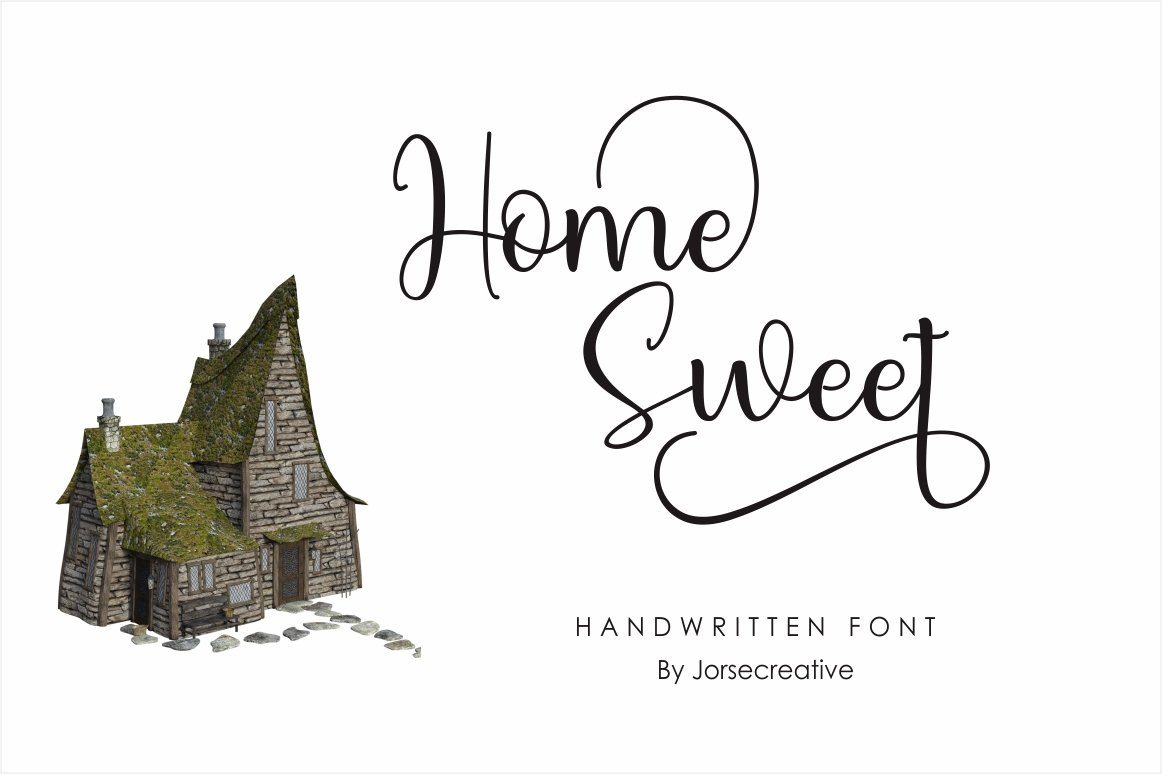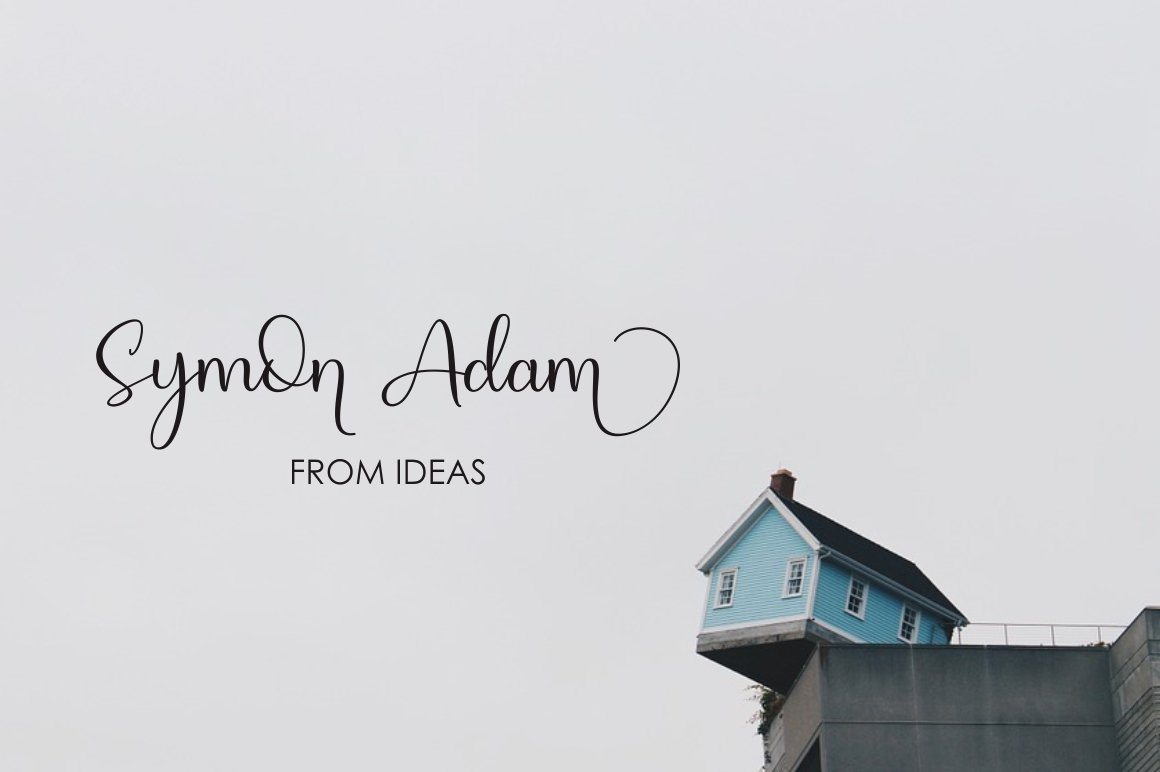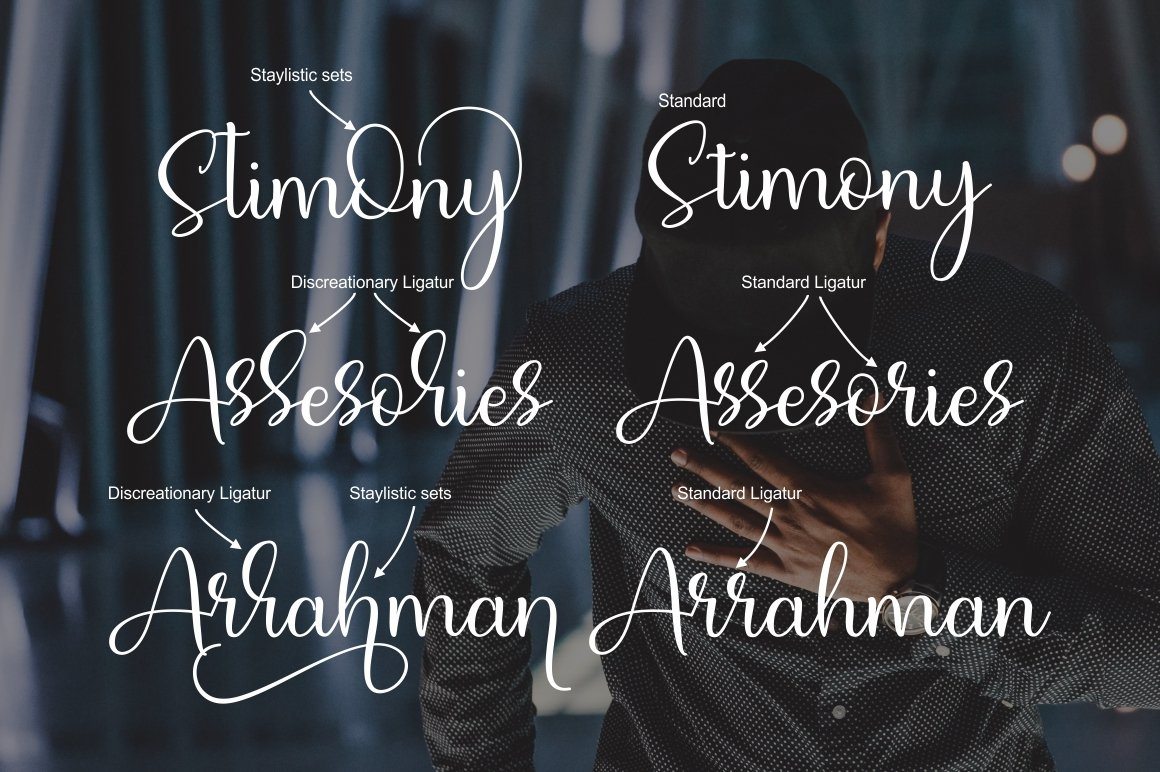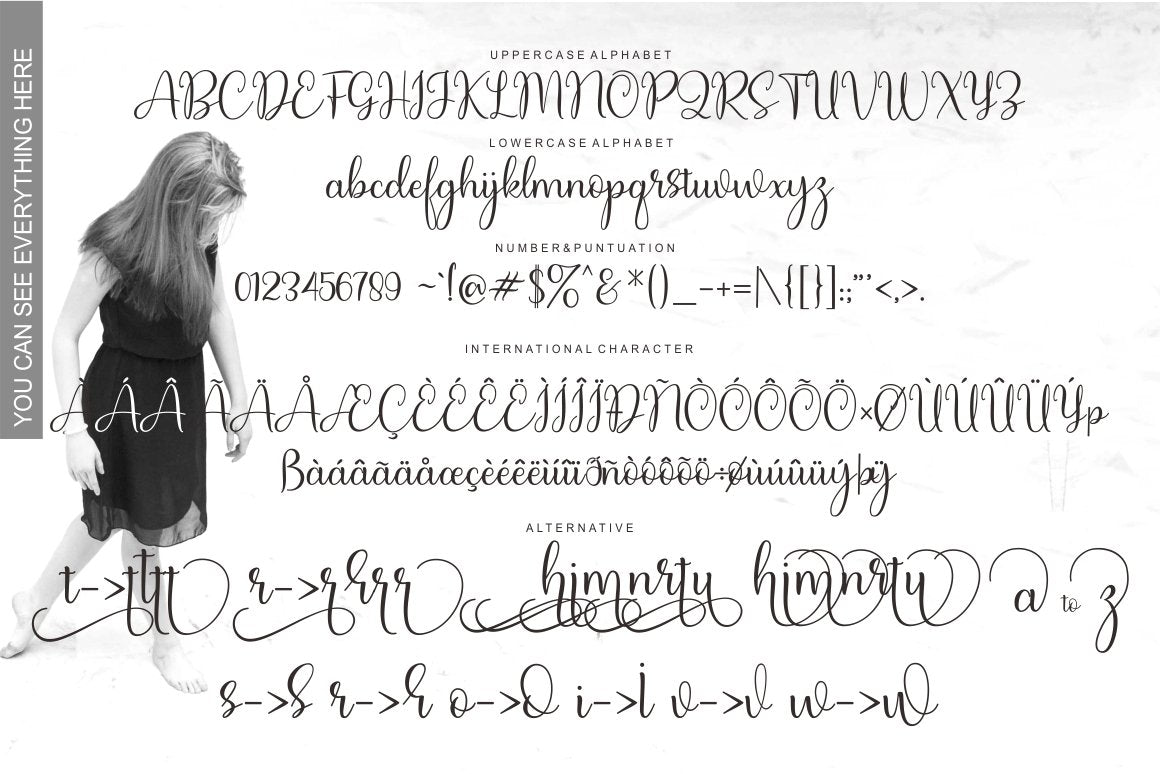
About Home Sweet
Proudly introducing ‘Home Sweet’ Fonts that are made in such a way as to produce fonts that are written in your own hands with vowels raised as a very useful alternative to beautifying your designs such as Greeting Cards, Names in rooms, Brands, for property names in brochures , t-shirts and so on. Home Sweet Font Includes: – Alphabet Uppercase – Lowercase alphabet – Number & Punctuation – International characters and with the addition of a beautiful alternative (can you find in preview image) This font feature is: – Ligatures – Standard Ligatures – Discretionary – Stylistic Alternates – Stylistic sets -PUA Unicode (Private Use Areas) You will get: – Home Sweet OTF – Home Sweet TTF – Home Sweet EOT – Home Sweet SVG – Home Sweet WOFF Supported Languages: Breton, Catalan, Czech, Danish, Estonian, French, German, Hungarian, Latvian, Lithuanian, Norwegian, Spanish, Swedish, Turkish, Welsh. Basically, all European languages are based on the Latin alphabet To use a beautiful swash, you need a program that supports OpenType features like Adobe Illustrator CS, Adobe Photoshop CC, Adobe Indesign, and Corel Draw. Programs that support in this font is a Adobe Photo Shop, Adobe Illustrator, Adobe Indesign, Corel Draw and Microsoft Office.Languages supported: Breton, Catalan, Czech, Danish, Estonian,French, German, Hungarian, Icelandic, Italian, Romanian, Scottish Gaelic, Slovak, Latvian, Lithuanian, Norwegian, English, Finnish, Polish, Portuguese, Slovenian, Spanish, Swedish, Turkish, Welsh. Basically, all european languages that are based on latin alphabet Can be used for various purposes.such as headings, logos, wedding invitation, t-shirt, letterhead, signage, lebel, news, posters, badges etc. To enable the OpenType Stylistic alternates, you need a program that supports OpenType features such as Adobe Illustrator CS, Adobe Indesign & CorelDraw X6-X7. Basically, all european languages that are based on latin alphabet Can be used for various purposes.such as headings, logos, wedding invitation, t-shirt, letterhead, signage, lebel, news, posters, badges etc. To enable the OpenType Stylistic alternates, you need a program that supports OpenType features such as Adobe Illustrator CS, Adobe Indesign & CorelDraw X6-X7. thank you